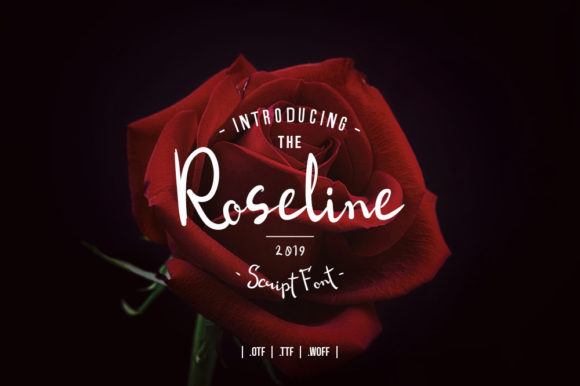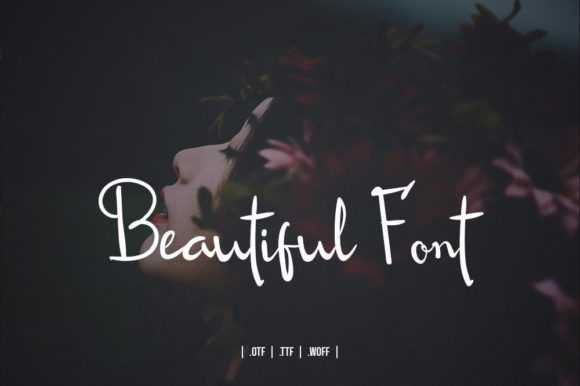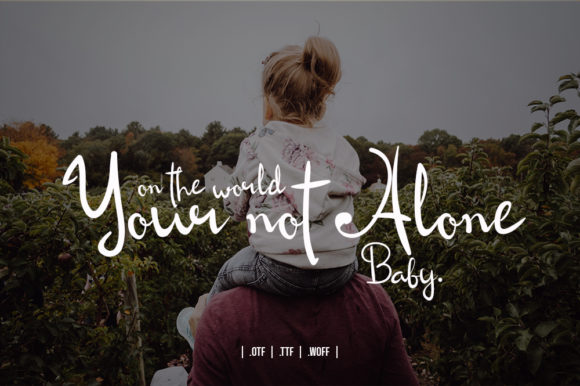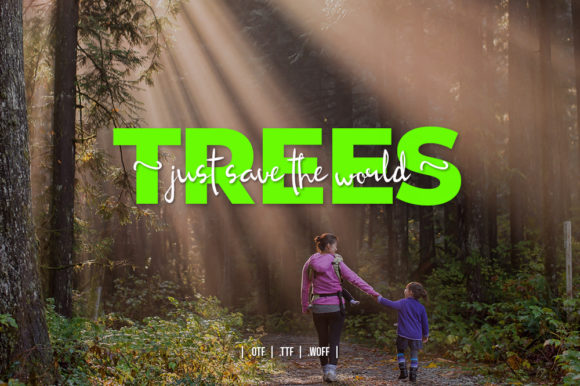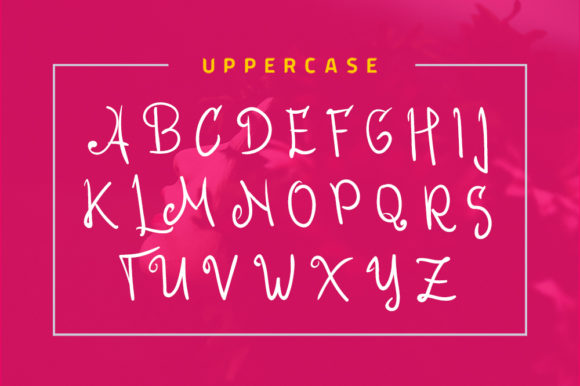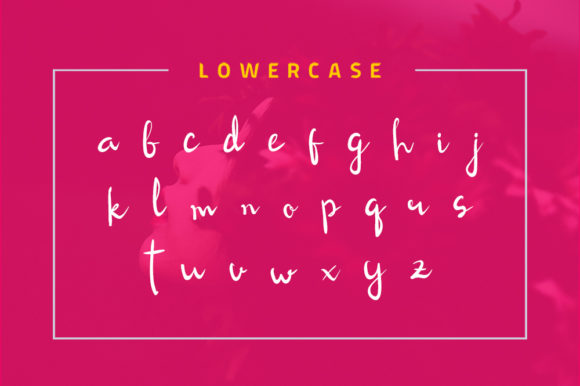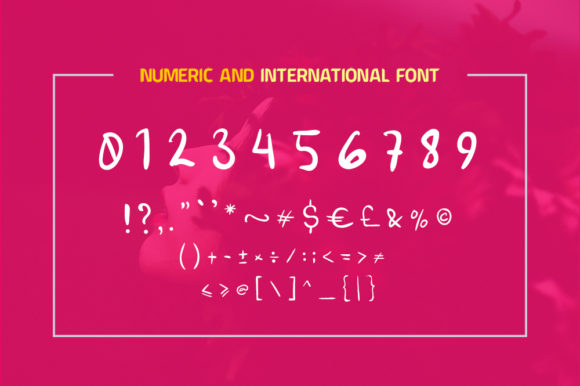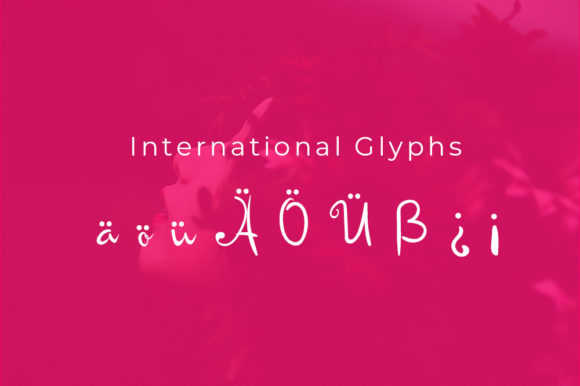
HomeScript FontsRoseline Script Font Script Fonts Roseline Script Font FacebookXPinterestWhatsApp Roseline Script Font Poster 2 Roseline Script Font Poster 3 Roseline Script Font Poster 4 Roseline Script Font Poster 5 Roseline Script Font Poster 6 Roseline Script Font Poster 7 Roseline Script Font Poster 8 About Roseline Script Font Roseline is a stunning handwritten font with an authentic spark. Fall in love with its organic vibe. DOWNLOAD NOW People also explored Dragon Wings Font Night Monster Font Soulmate Garden Font Bumbees Font Gittany Signature Font Dinosaurs Roar Font Highland Font Wonderfull Font Siren Font 325 0 TagsRoseline Script Font Previous articleCalefornia Script FontNext articleAndora Font LEAVE A REPLY Cancel reply Comment: Please enter your comment! Name:* Please enter your name here Email:* You have entered an incorrect email address! Please enter your email address here Website: Save my name, email, and website in this browser for the next time I comment. Personal Use Free Green Fuz Personal Use Free Read more about this font Rolling Door Personal Use Free Read more about this font Doodle Font Personal Use Free Read more about this font Romansya Personal Use Free Read more about this font BLOG Free vs Paid Fonts: Why Investing in Premium Fonts Is Worth It Free vs Paid Fonts: Why Premium Fonts Are Worth It in 2025 The debate of free vs paid fonts continues in the design world. While... Top 10 Handwritten Fonts That Elevate Your Designs Free Fonts Risk: Why Free Fonts Can Be Dangerous for Designers Exploring Font Trends